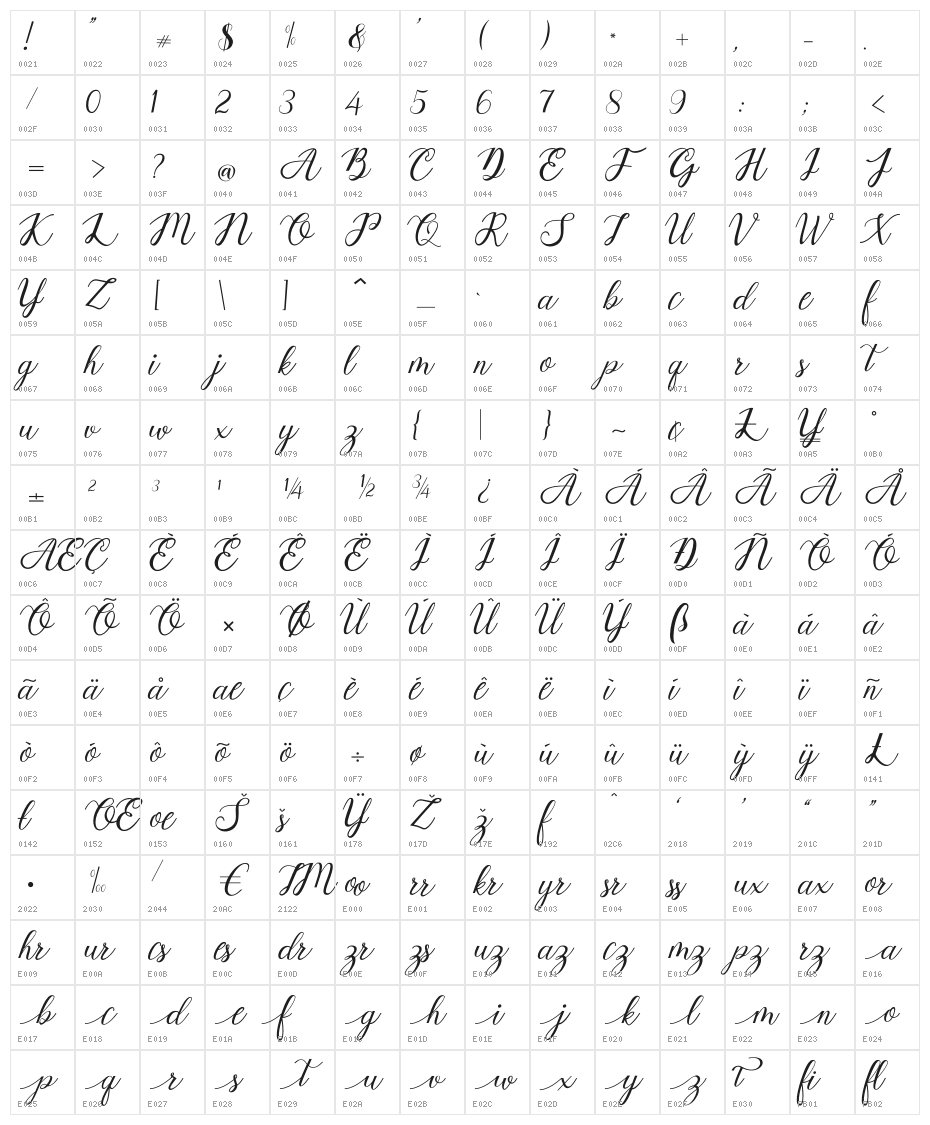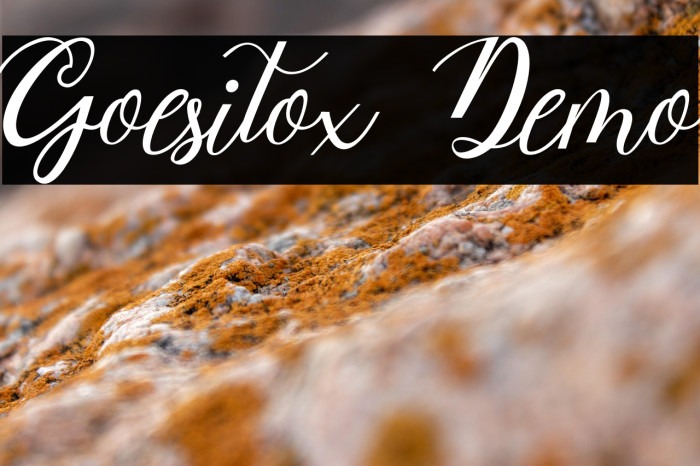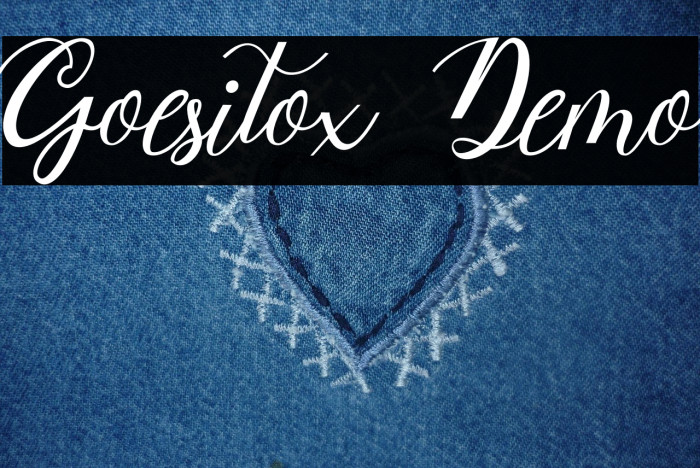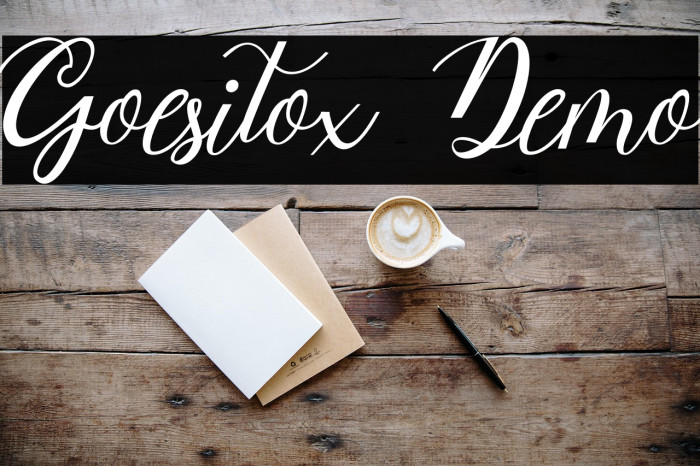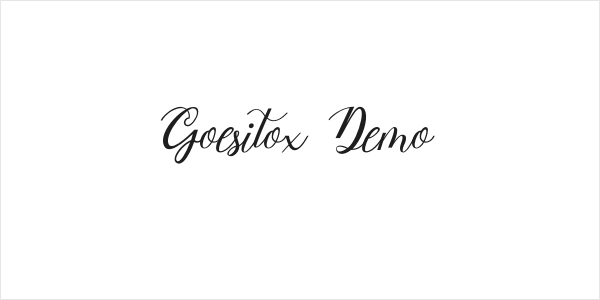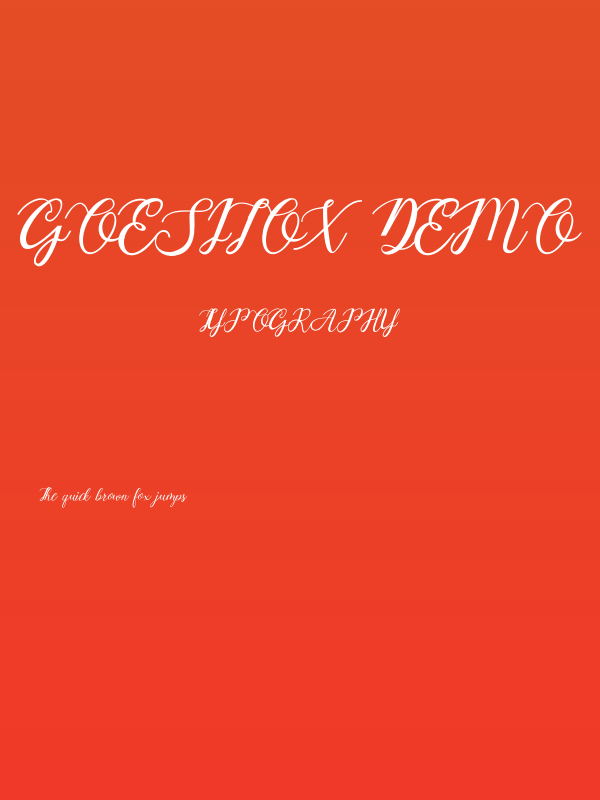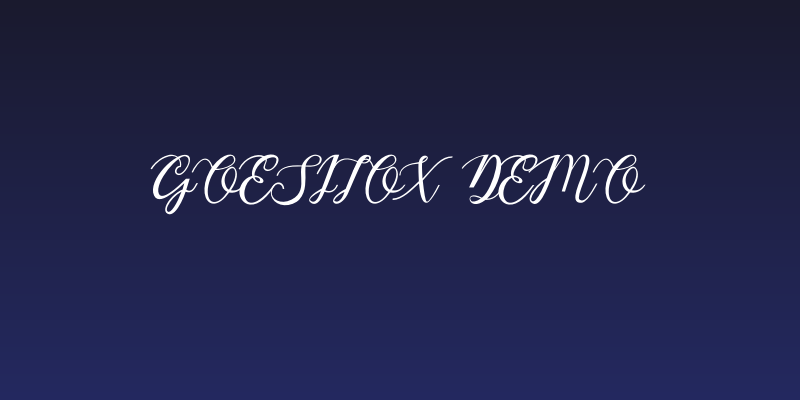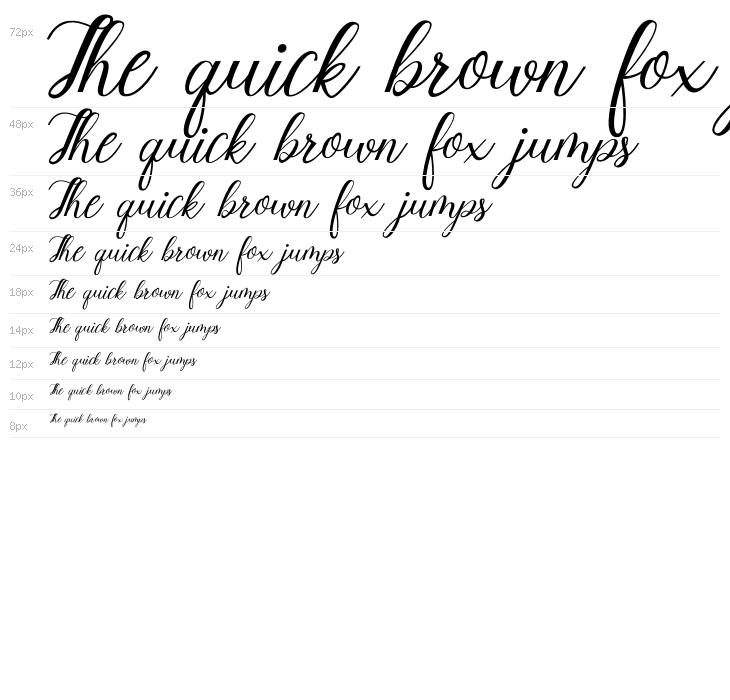
Goesitox Demo Font
Goesitox Demo Description
This elegant script font features a flowing, cursive style with high contrast between thick and thin strokes. The uppercase letters are ornate, with sweeping curves and flourishes that give a sense of sophistication and grace. The lowercase letters maintain a consistent flow, enhancing readability while retaining an artistic flair. Numbers are designed with a similar elegance, making them suitable for formal invitations or decorative purposes. The special characters are crafted to match the overall aesthetic, ensuring a cohesive look across all text elements. This font is perfect for projects that require a touch of elegance and refinement.
| Overall Style | Elegant, Decorative |
| Use Case | Headlines, Invitations, Logos |
| Proposed Projects | Ideal for wedding invitations, elegant branding, luxury packaging, and decorative headings. |